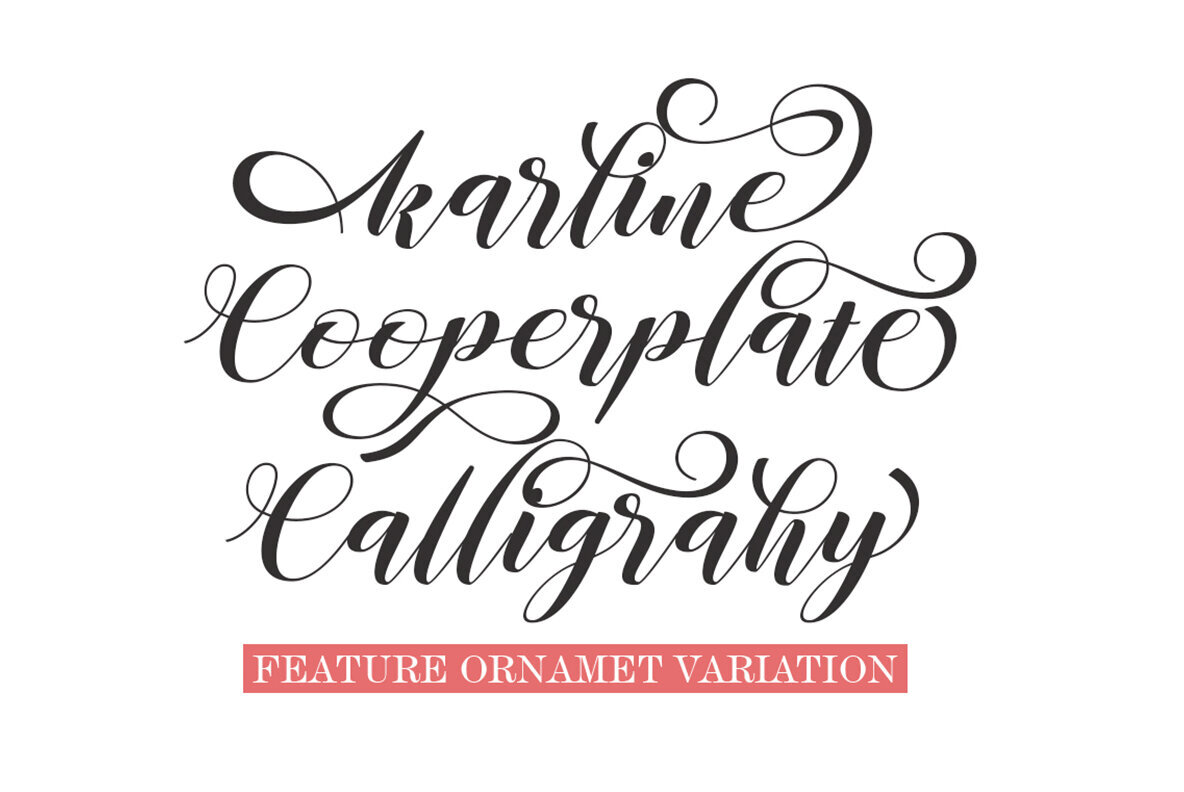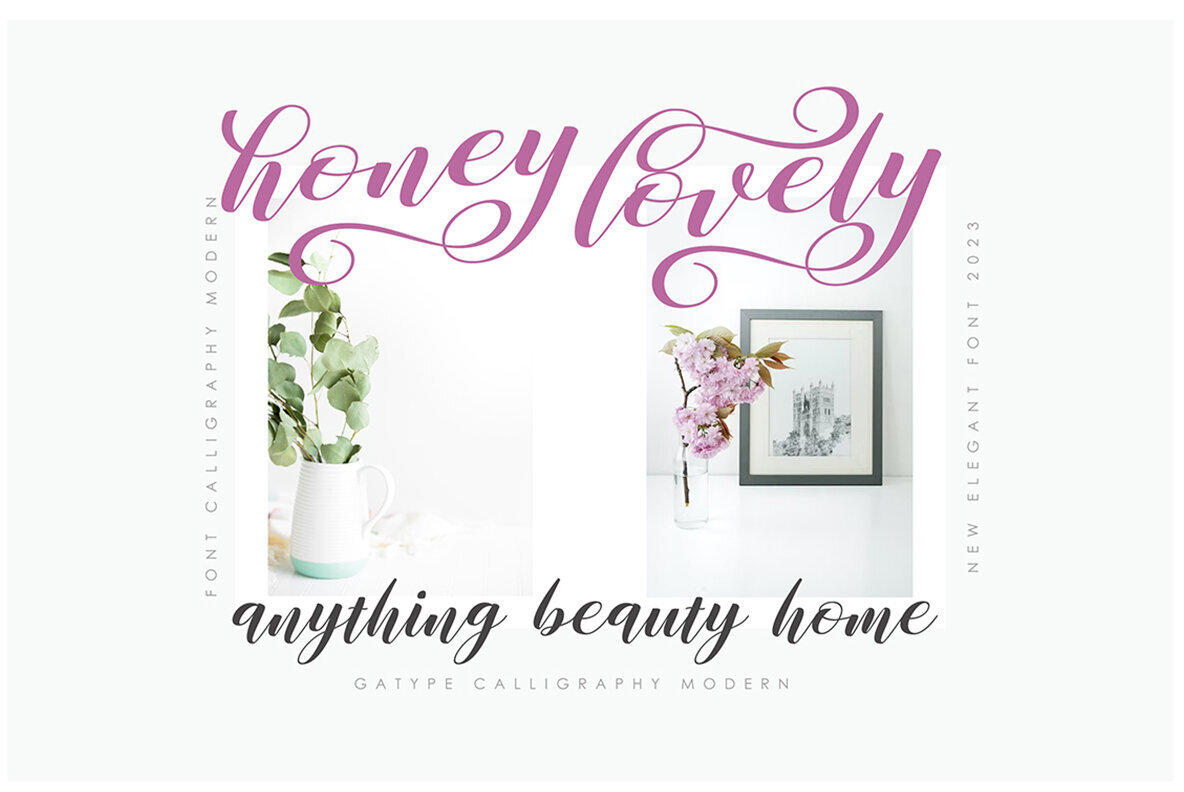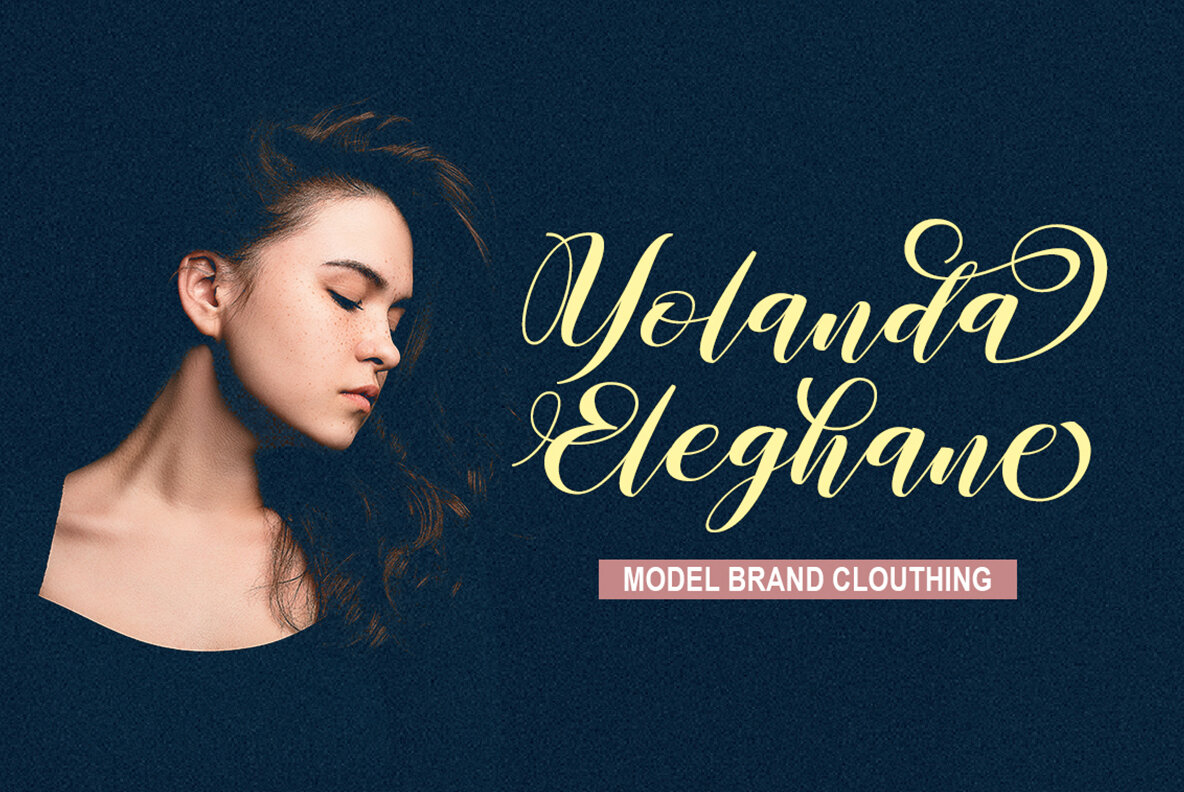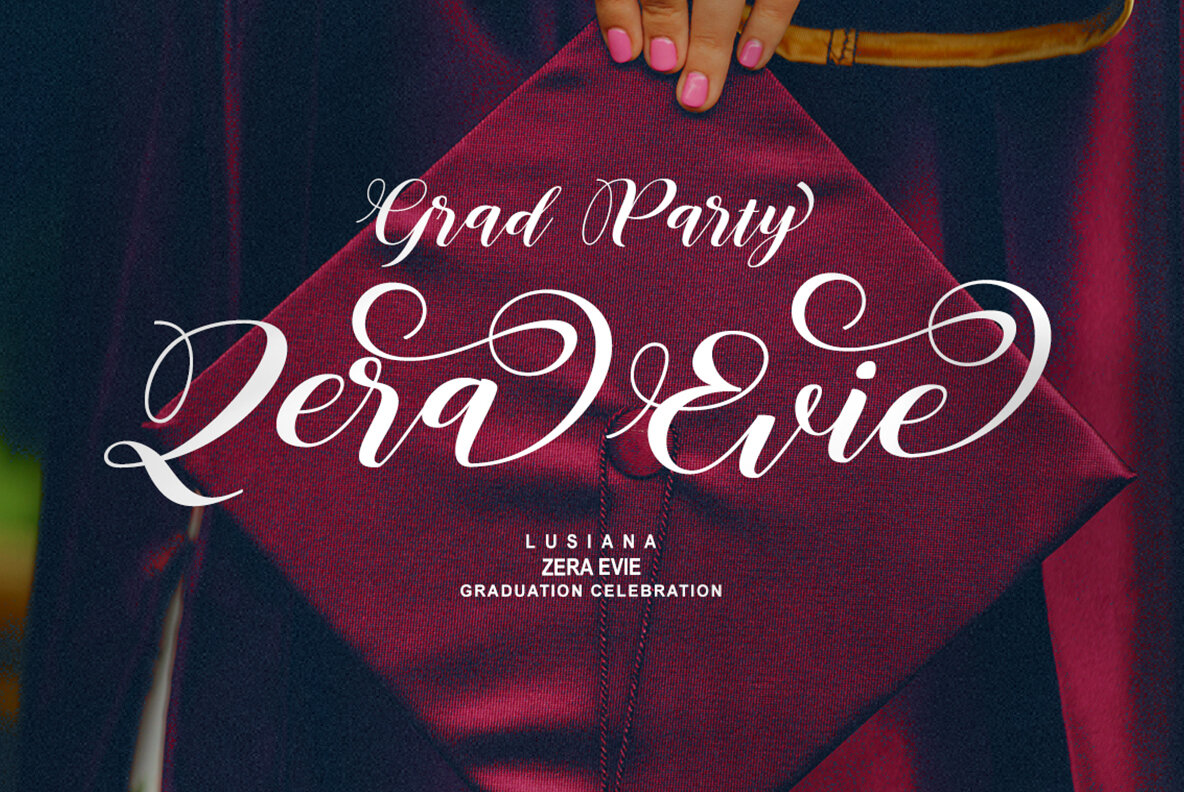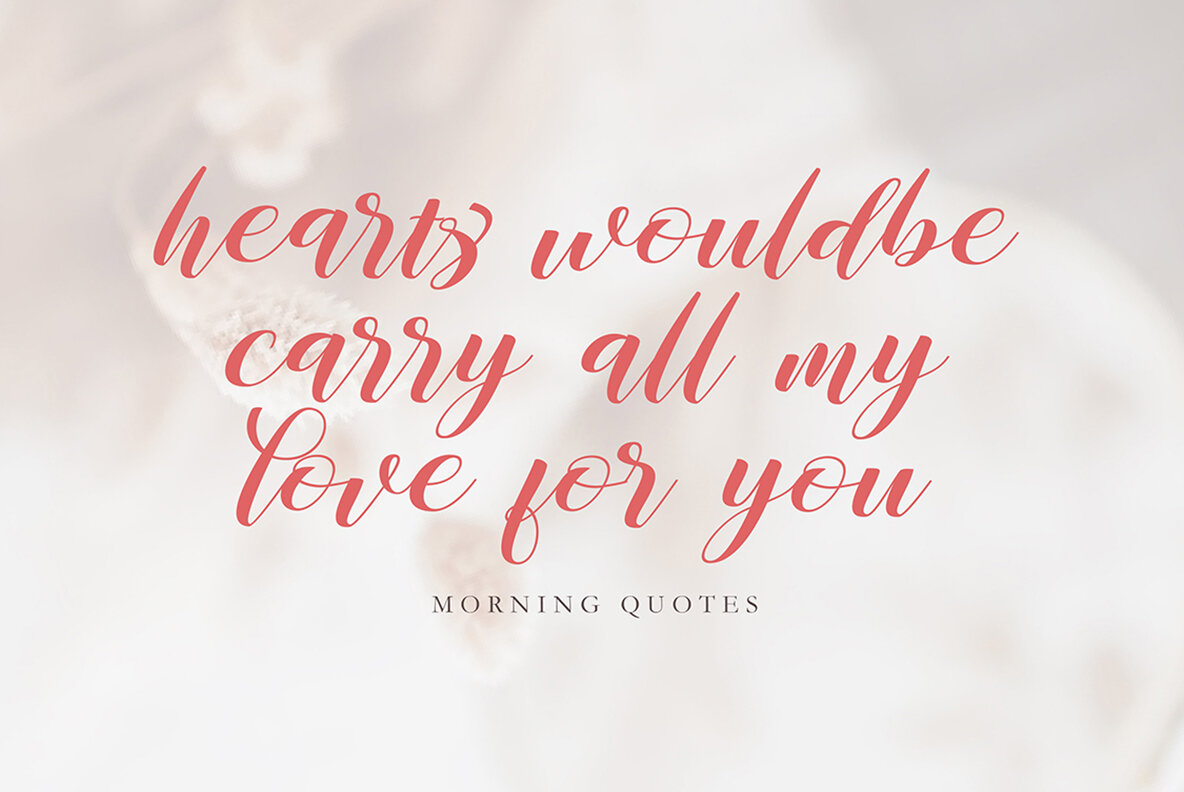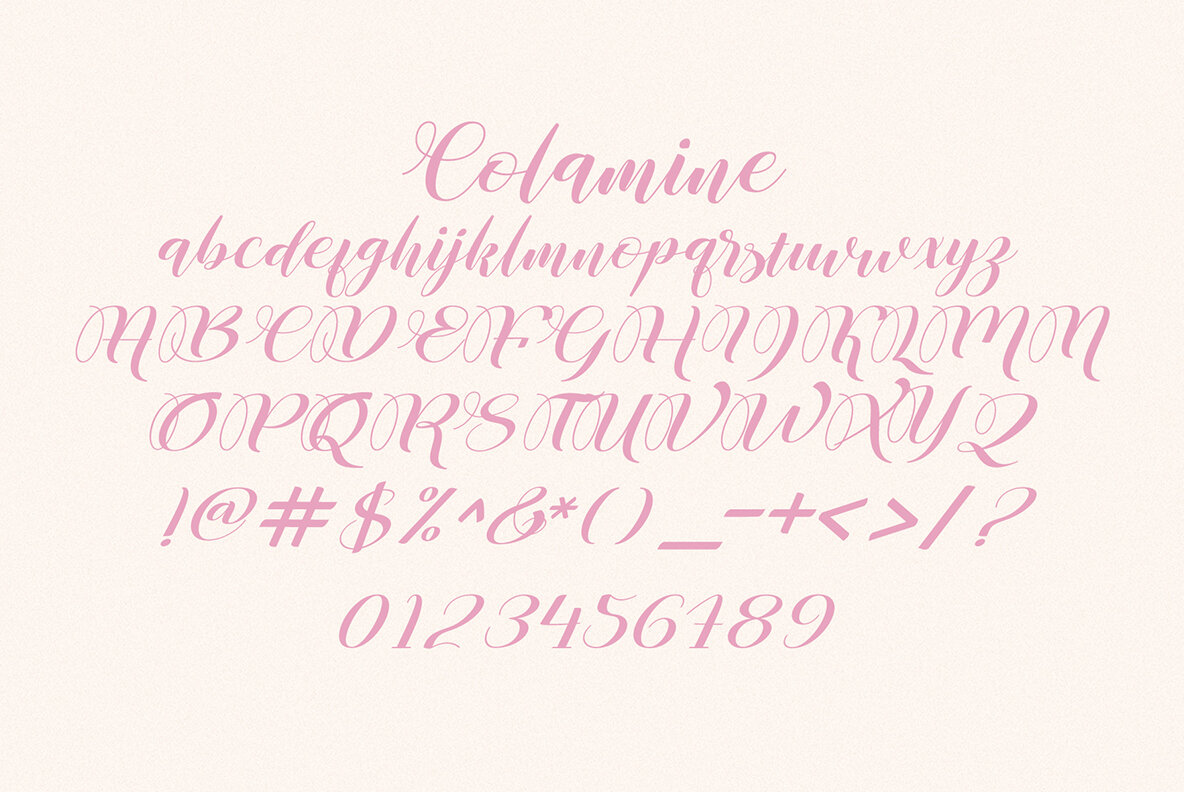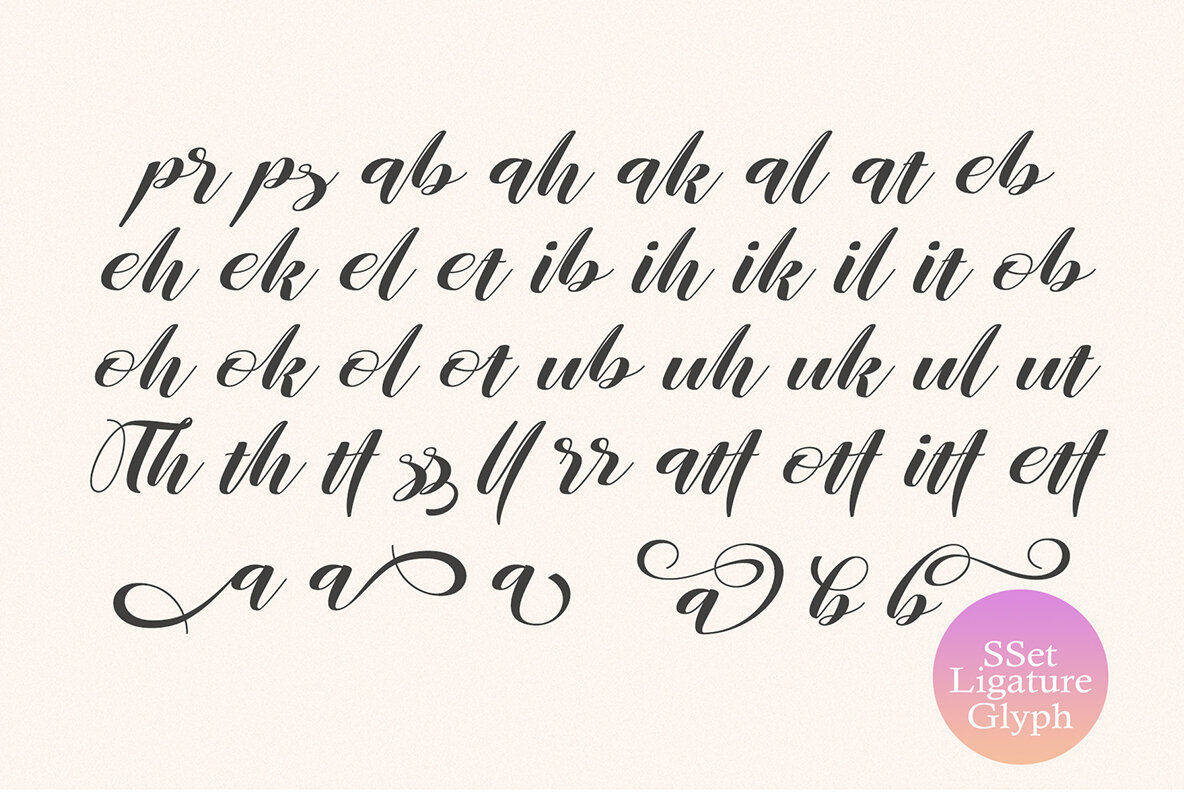
Colamine Font
Colamine by Khaidir is a modern, free-flowing, hand-drawn font featuring three complete character sets. It includes uppercase and lowercase letters with full initial and final swash sets, binders, and a stylistic set. Every character was meticulously hand-drawn and digitized to create a contemporary script. Customize by mixing character sets and additional options to craft unique, handwritten designs.
This versatile script includes one set of capitals ideal for monograms and another that resembles block letters. Perfect for wedding suites, social media, blogs, titles, magazine layouts, monograms, and various business needs. See the preview to discover the creative possibilities.